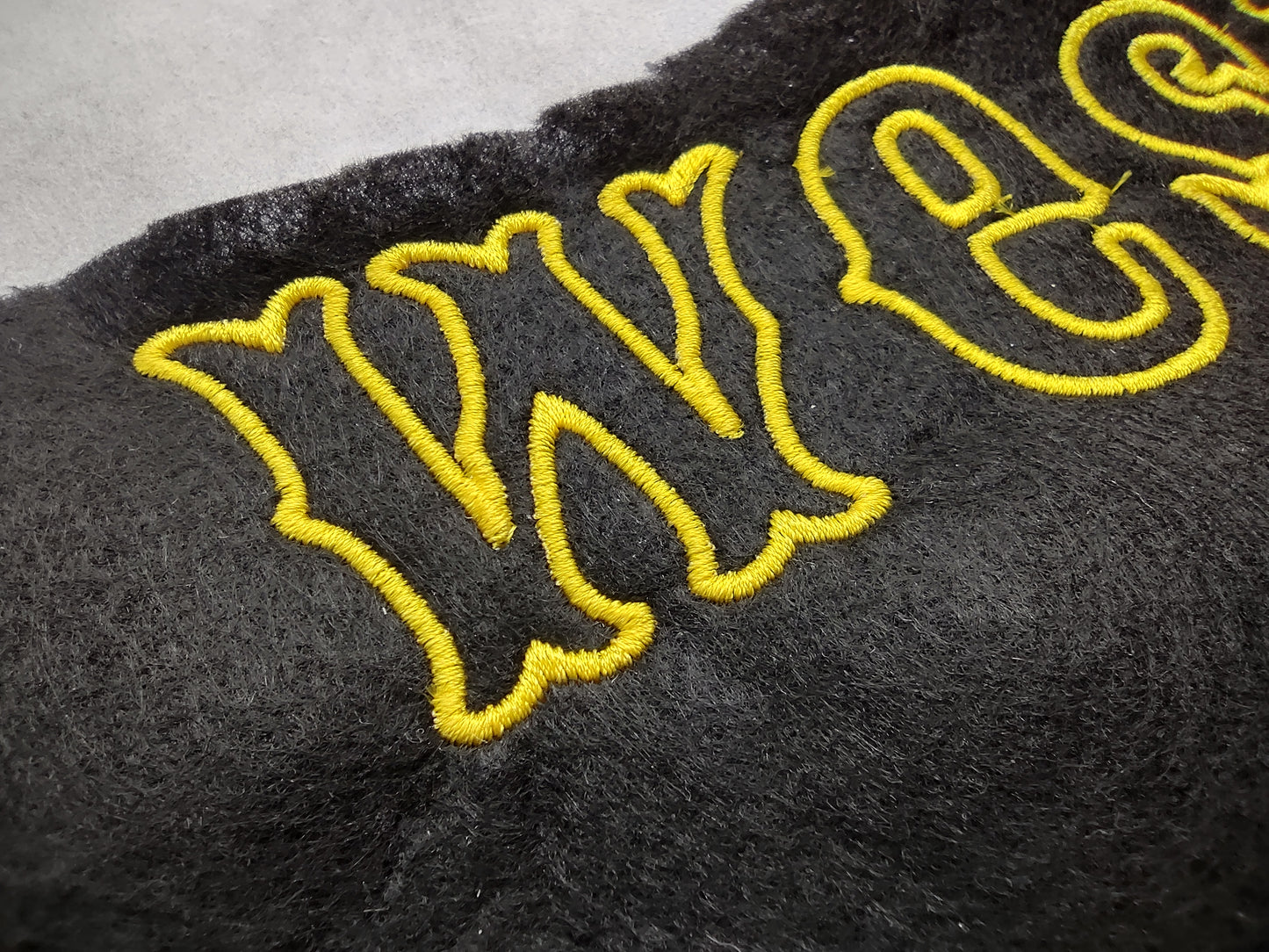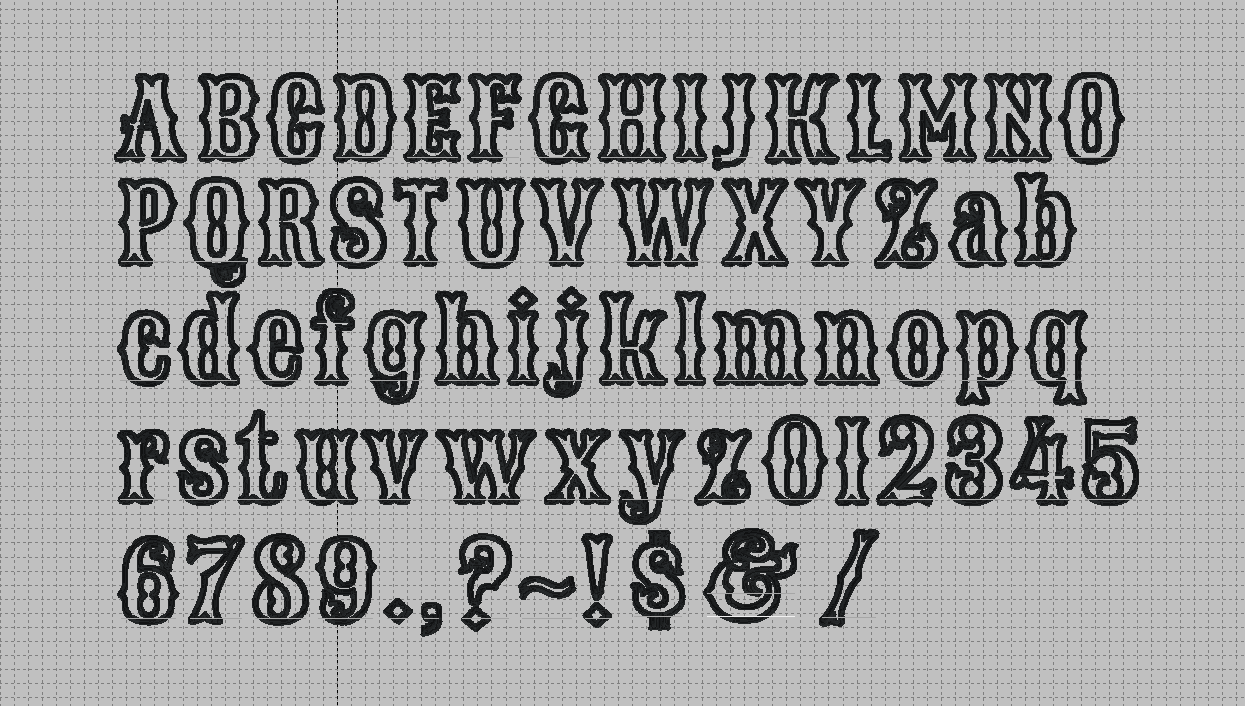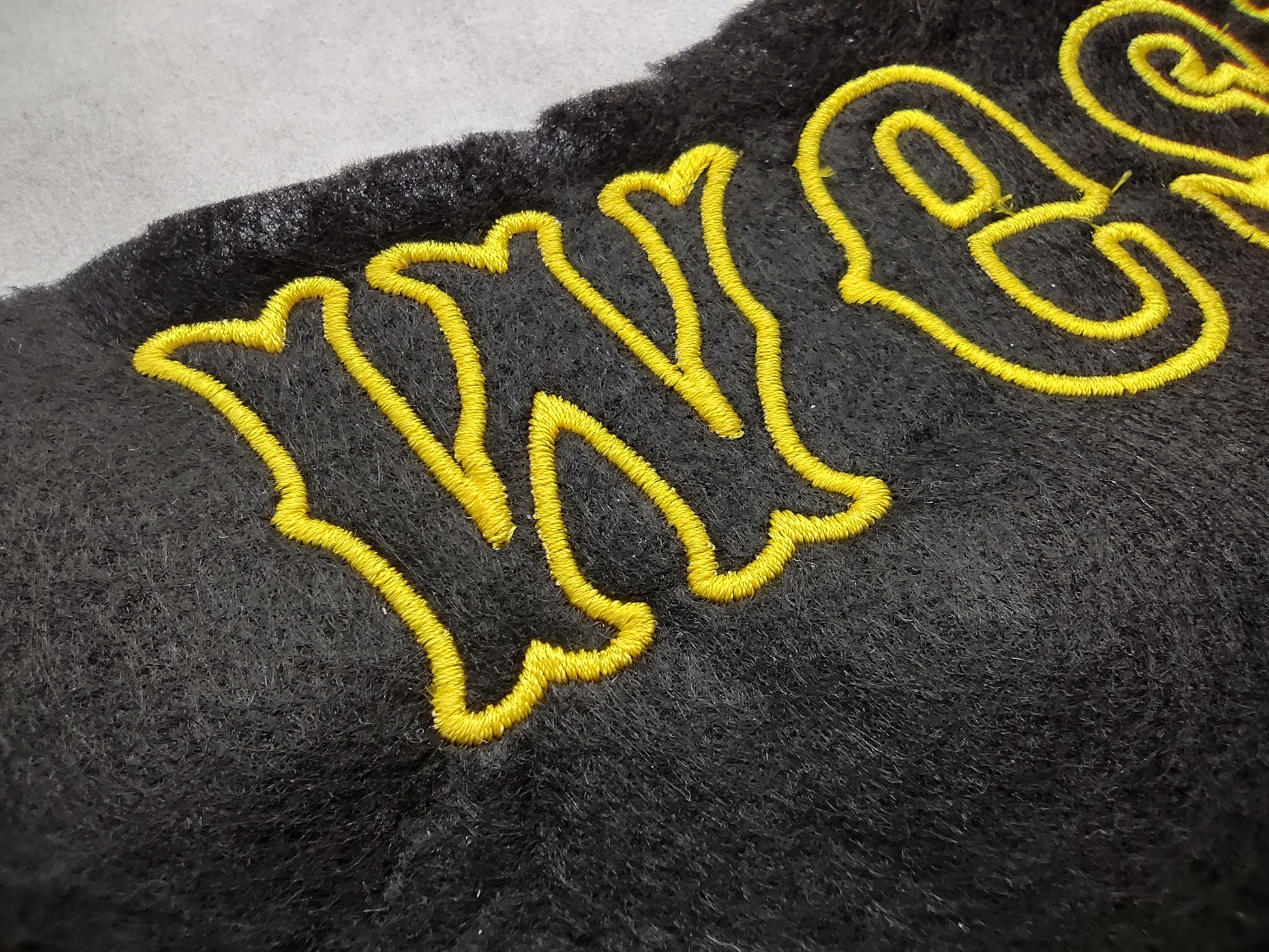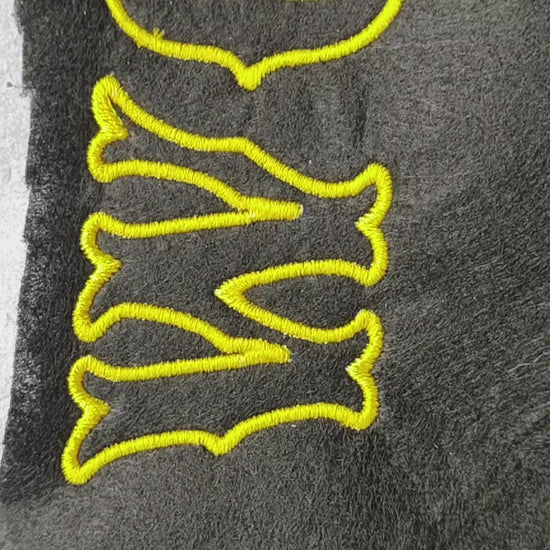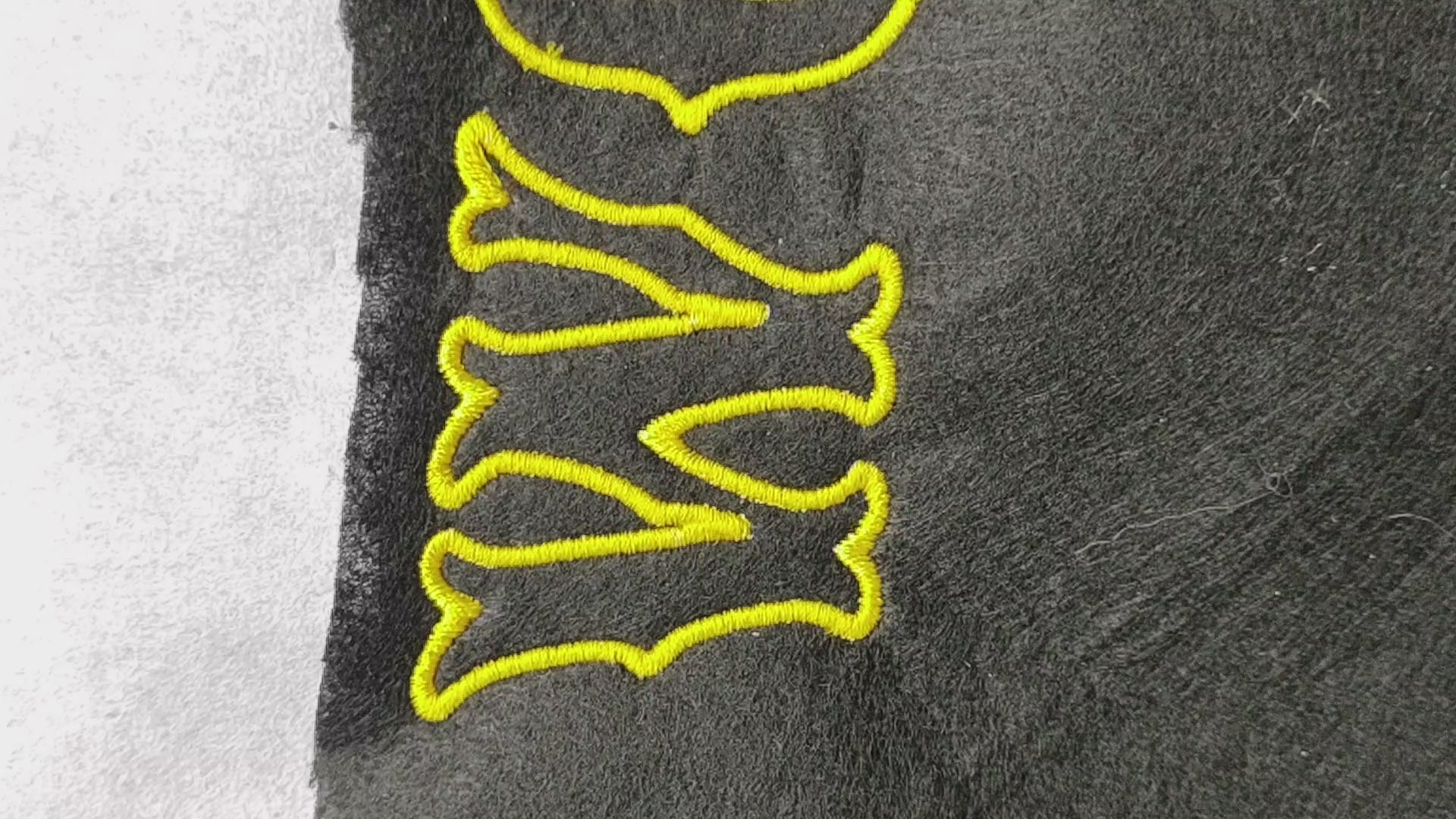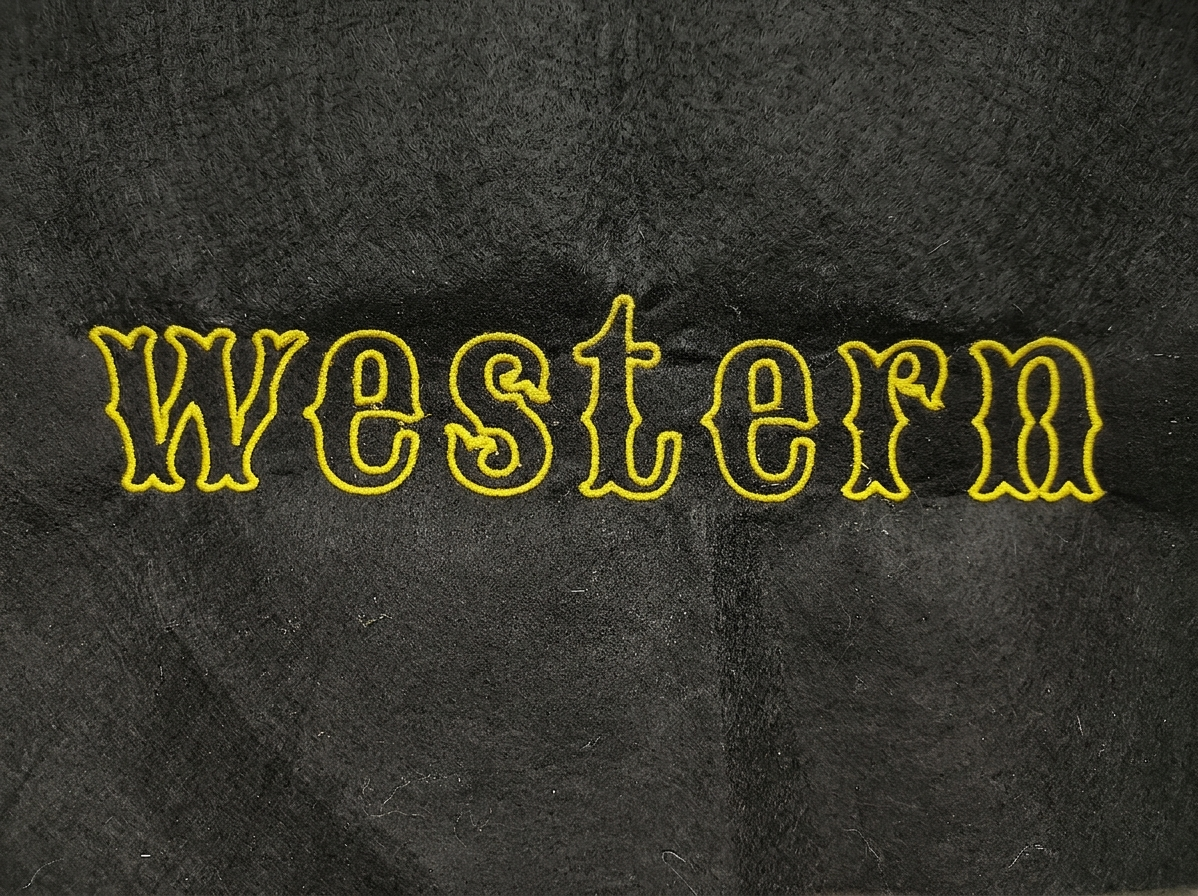
Western Native Bx Font, Applique Alphabet, Punctuation and Numbers with Satin Stitch Outline
The Native feature means it is created inside Embrilliance and the font can be customize by changing density, type of stitch and underlay. But the most important feature is that you can Resize and the software recalculates all the settings without loosing quality.
This font is an APPLIQUE font, with 3 layers, placement stitch, tackdown stitch and decorative satin.
This font will work great for rustic, farmhouse projects.